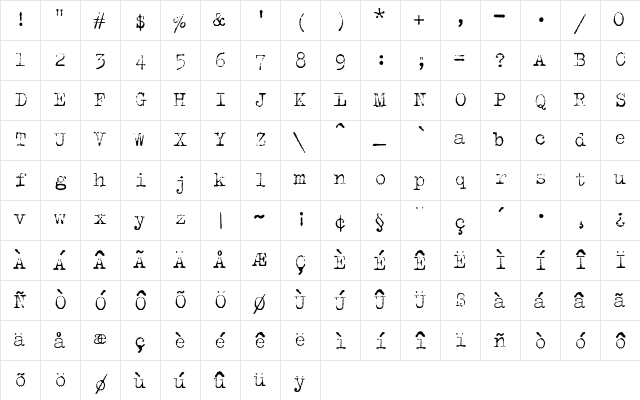
TrixieLight Regular Free Font
TrixieLight Regular
Complete TrixieLight Regular glyph index. Displaying only characters natively supported by TrixieLight Regular font.
Design Context for TrixieLight
TrixieLight is a composed and adaptable typeface that performs quietly and consistently across a wide range of design contexts. Its slender proportions lend an understated elegance to any composition.